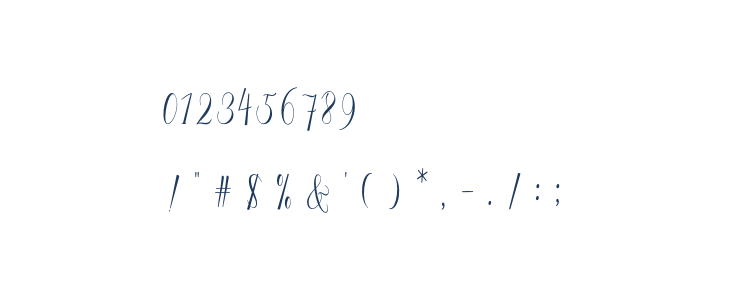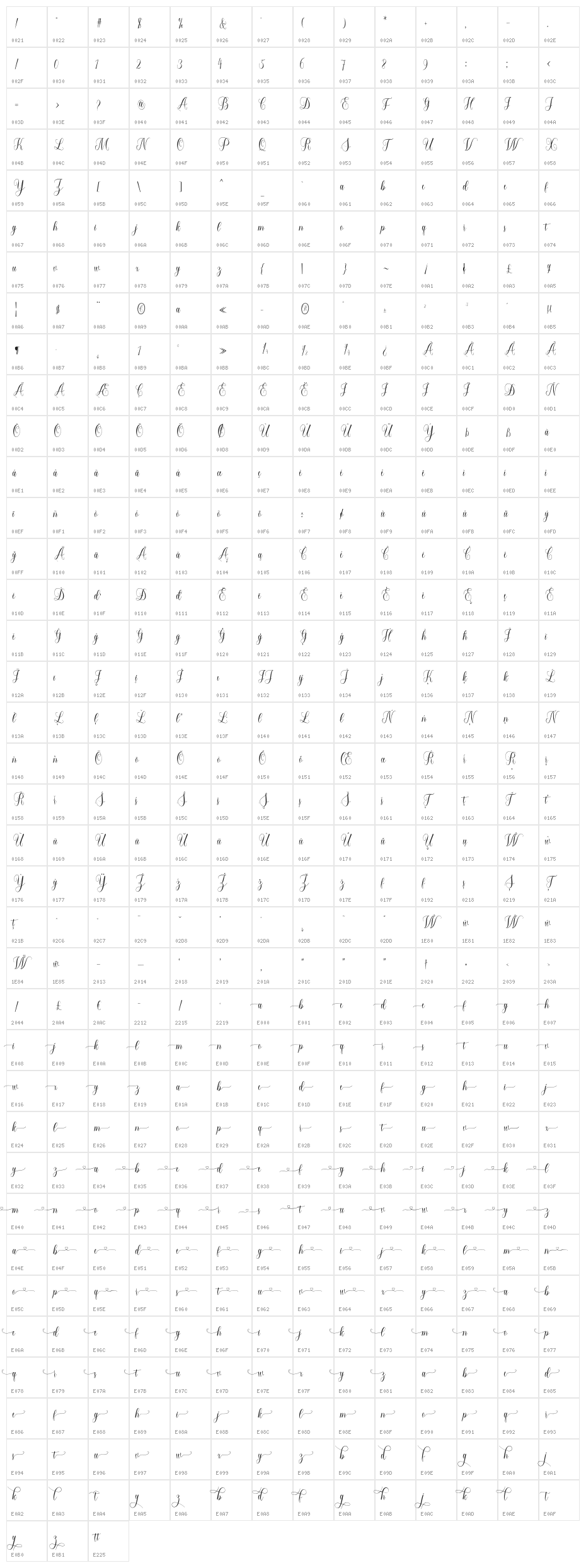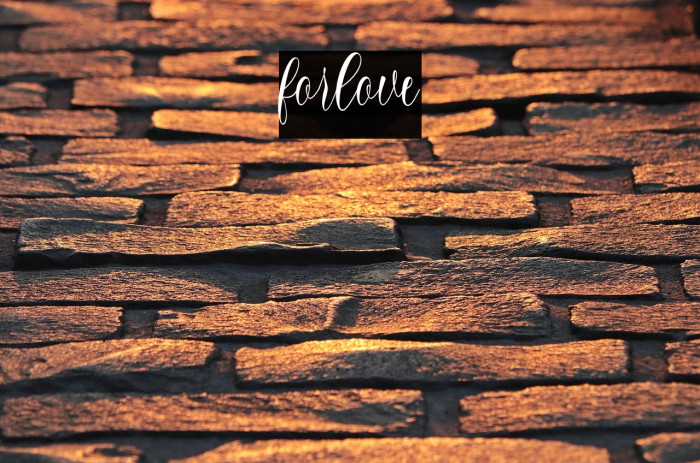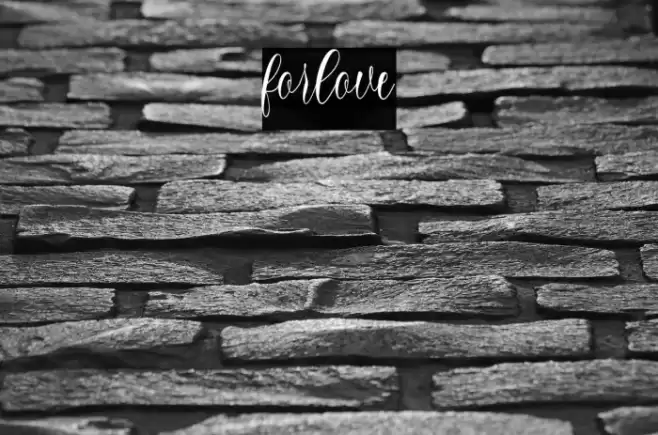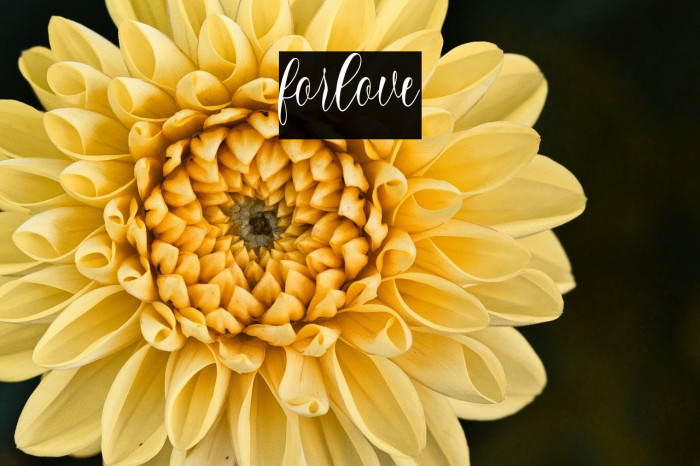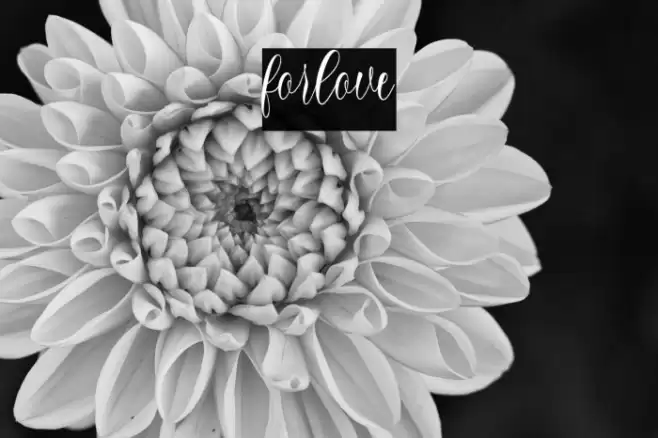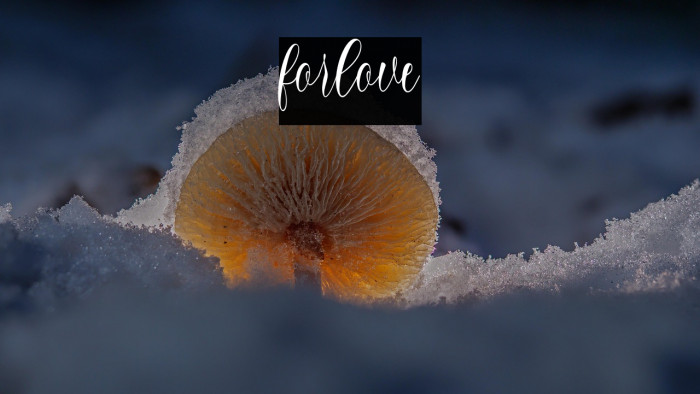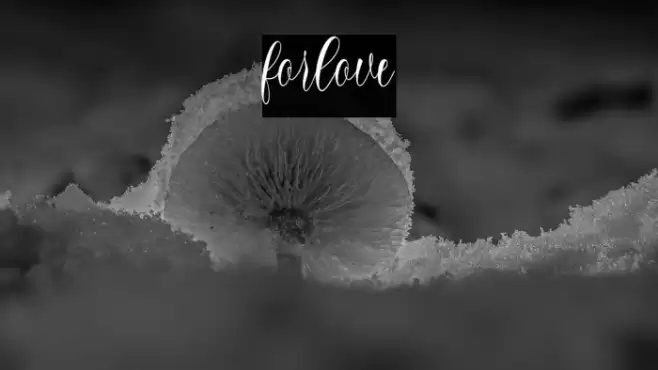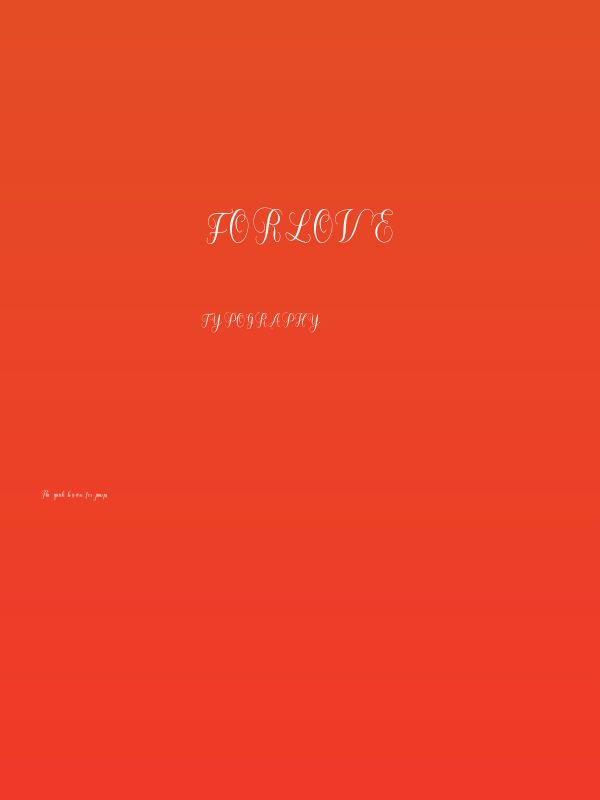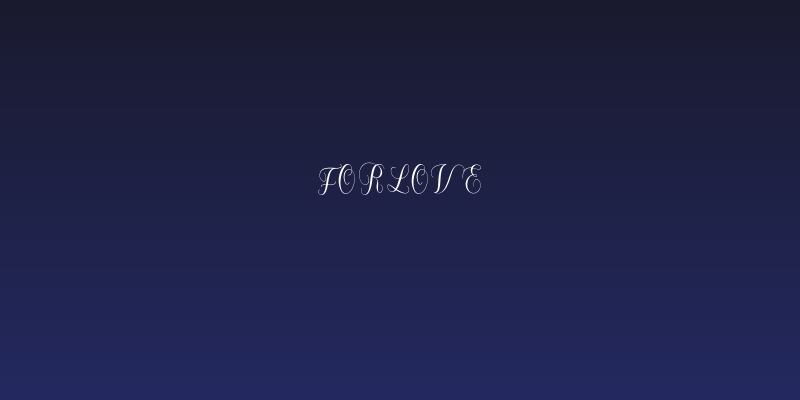
forlove Font
forlove Description
This elegant script font features flowing, cursive letters with a sophisticated and graceful appearance. The uppercase letters are ornate, with intricate loops and flourishes, while the lowercase letters maintain a more streamlined, yet still decorative style. The numerals are consistent with the overall aesthetic, offering a touch of elegance. Special characters are designed to complement the script style, adding versatility for various uses. The font's delicate strokes and high contrast between thick and thin lines enhance its refined look, making it ideal for formal and decorative applications.